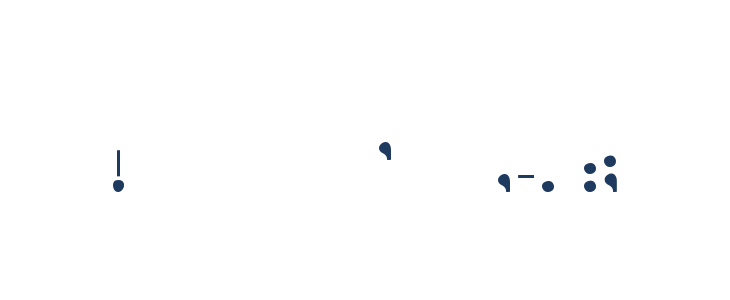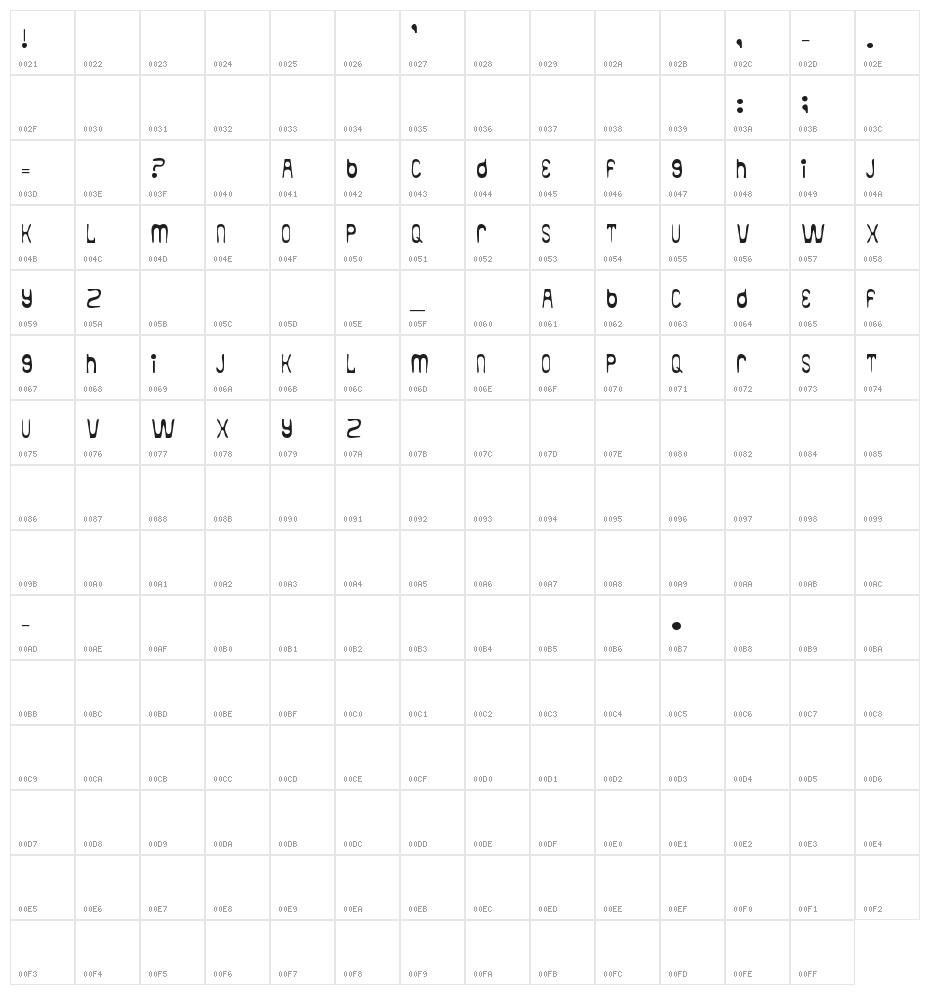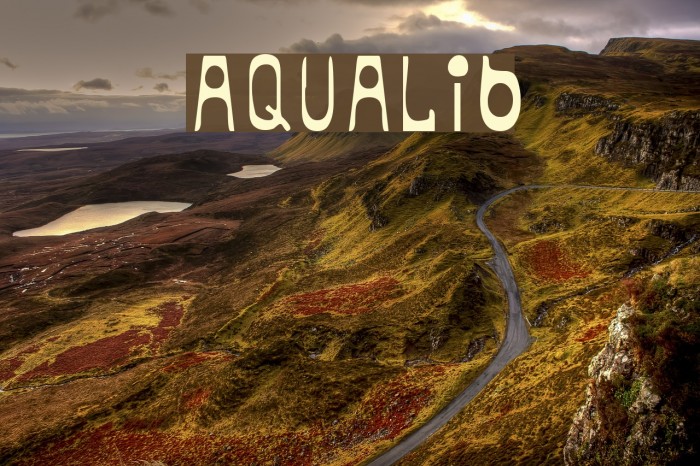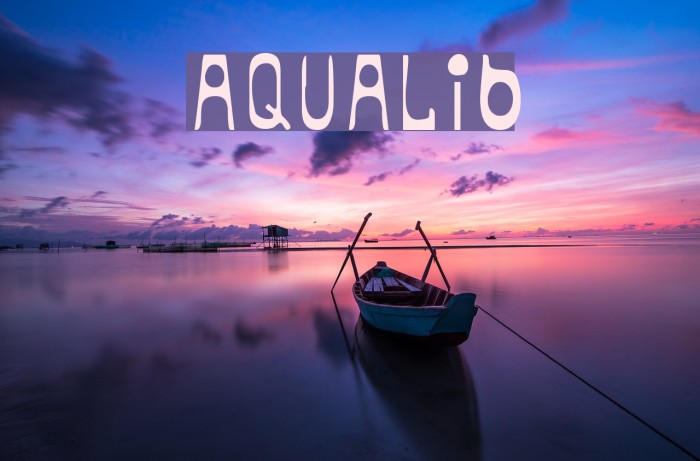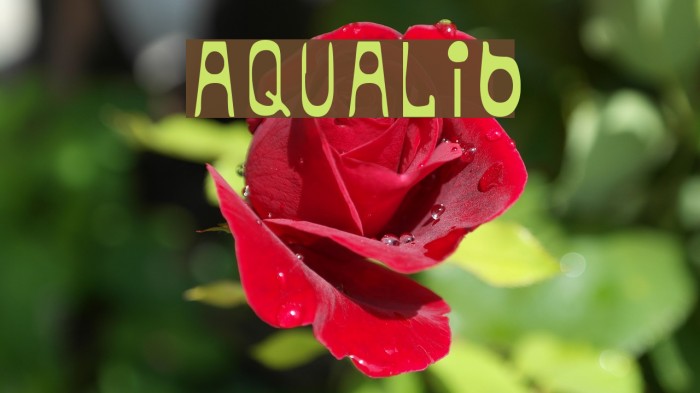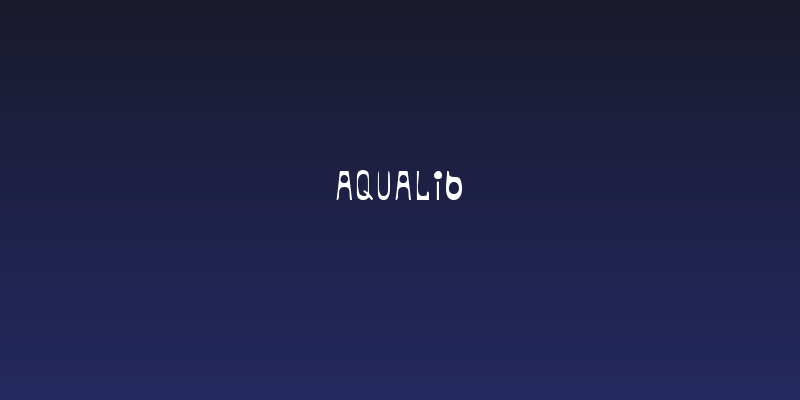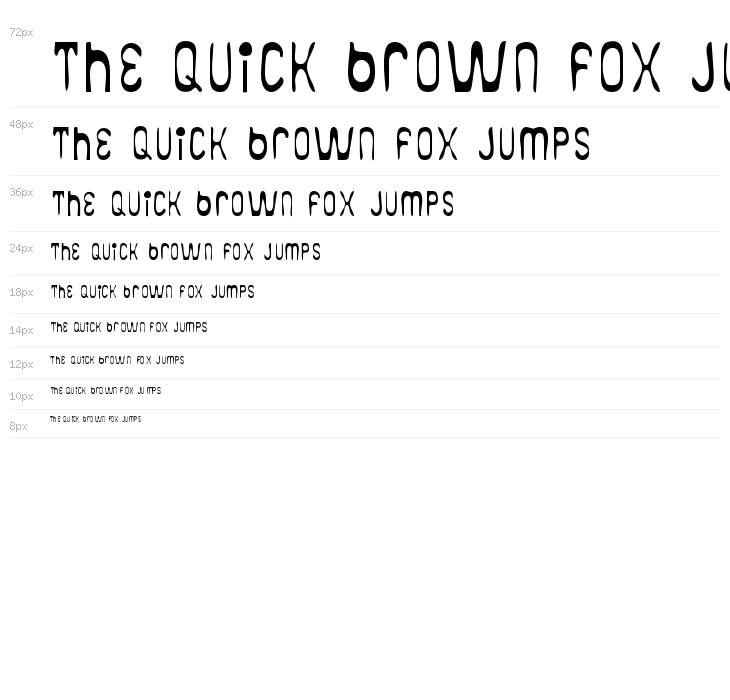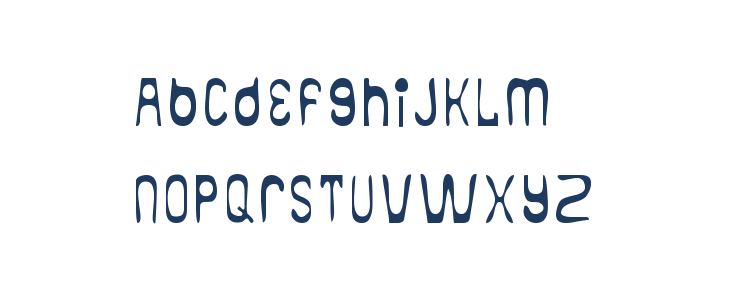
aqualib Font
aqualib Description
This font features a unique and playful design with a fluid, organic feel. The characters have a rounded, bulbous appearance, reminiscent of water droplets or bubbles. The strokes vary in thickness, creating a dynamic and lively aesthetic. The uppercase and lowercase letters maintain a consistent style, with some characters exhibiting a slight tilt or curve, adding to the whimsical nature of the font. The numerals and special characters follow the same design principles, ensuring a cohesive look across all glyphs. This font is ideal for projects that require a fun and engaging visual element.
| Overall Style | Playful, Organic |
| Use Case | Headlines, Logos, Creative projects |
| Proposed Projects | Ideal for children's books, playful branding, creative posters, and whimsical invitations. |